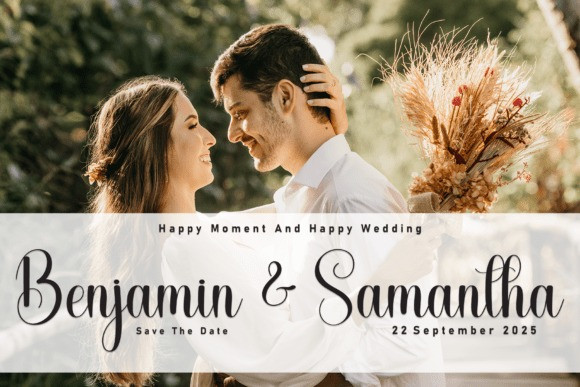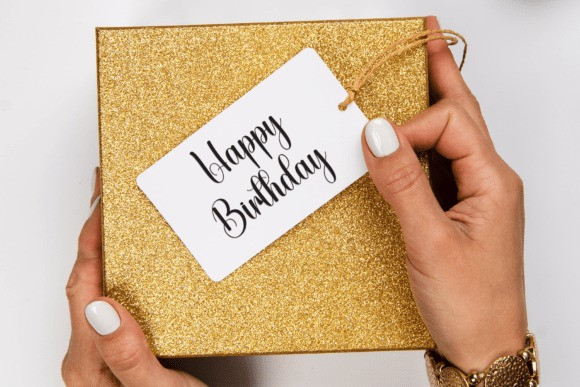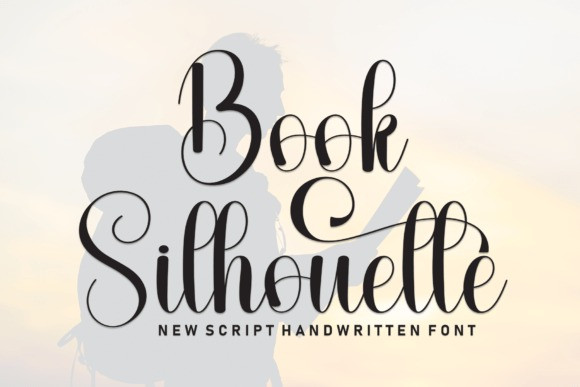
Book Silhouette Script Font
Book Silhouette Script Font is a stylish script font that exudes elegance and contemporary charm. Featuring graceful strokes, fluid curves, and carefully crafted letterforms, it captures the beauty of hand-drawn calligraphy with a modern twist. Ideal for logos, invitations, packaging, and social media graphics, it adds a refined and sophisticated touch to any design. With its natural flow and polished details, this font delivers both versatility and visual appeal.